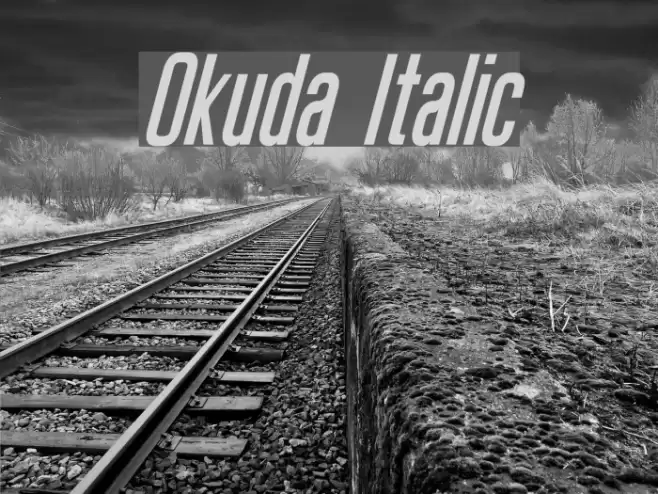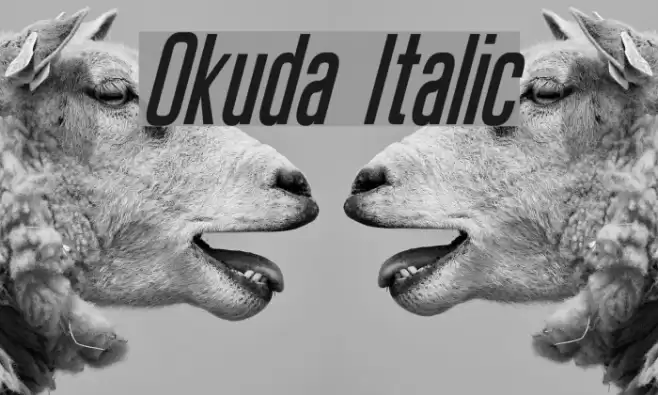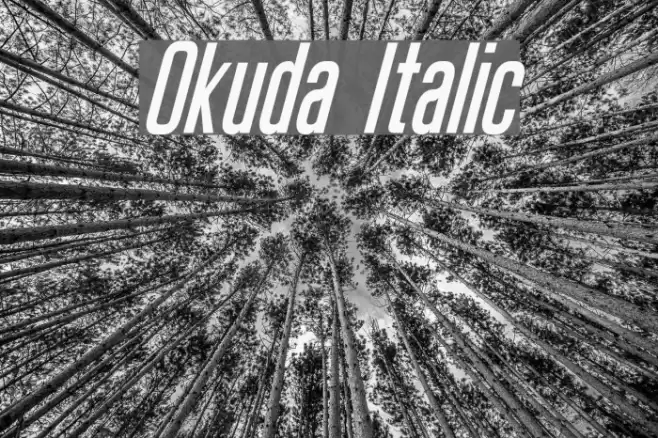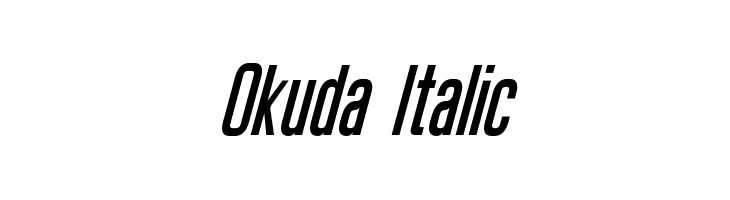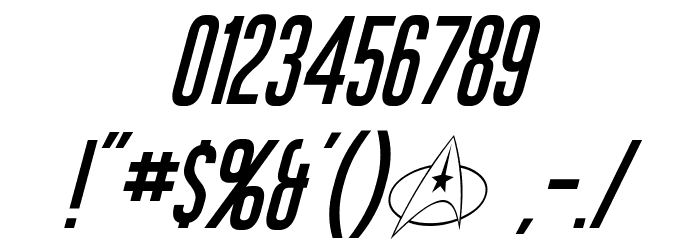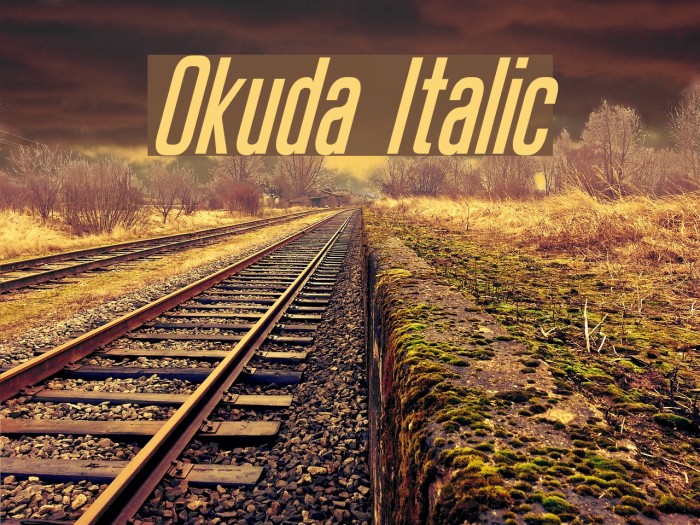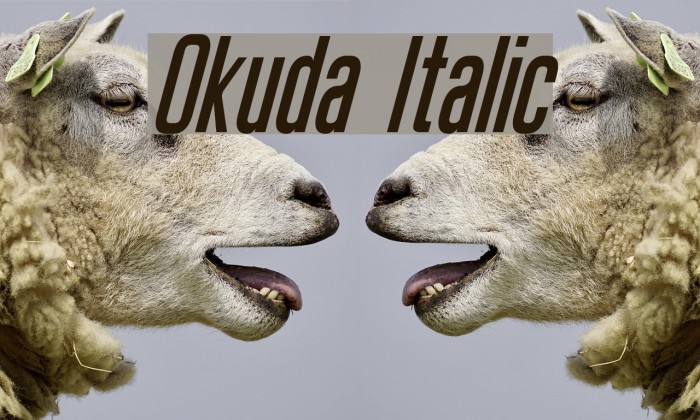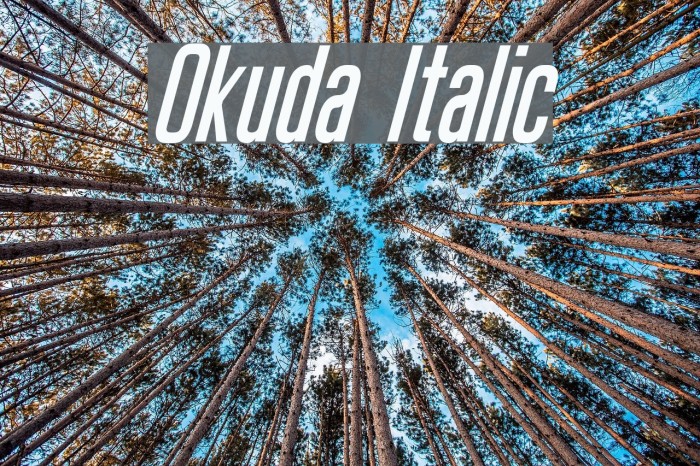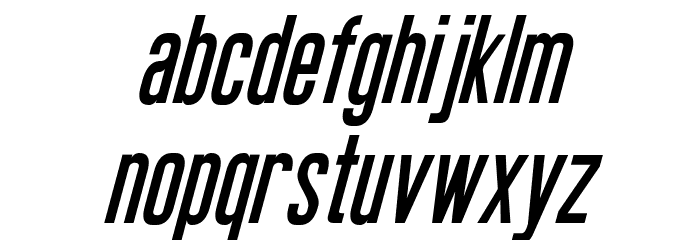
Okuda Italic Font
Okuda Italic Description
This font features a dynamic and modern italic style with a strong emphasis on angular lines and sharp edges. The characters are slightly condensed, giving it a sleek and streamlined appearance. The uppercase and lowercase letters maintain a consistent slant, enhancing the sense of motion and energy. The numerals and special characters are designed to match the overall aesthetic, providing a cohesive look across all elements. This font is well-suited for projects that require a bold and contemporary feel.
A modern, italic font with angular lines and a sleek, condensed style from Uncategorized fonts.
- Proposed Projects: Ideal for branding, sports team logos, dynamic posters, and modern web design.